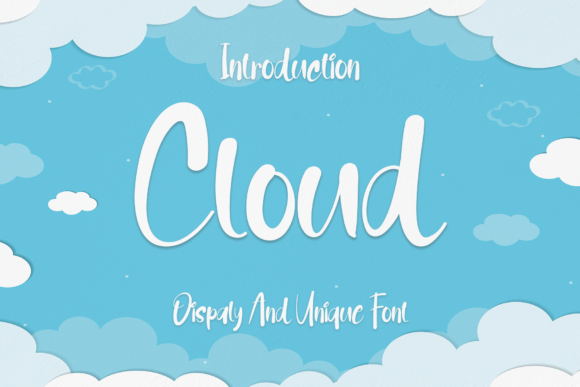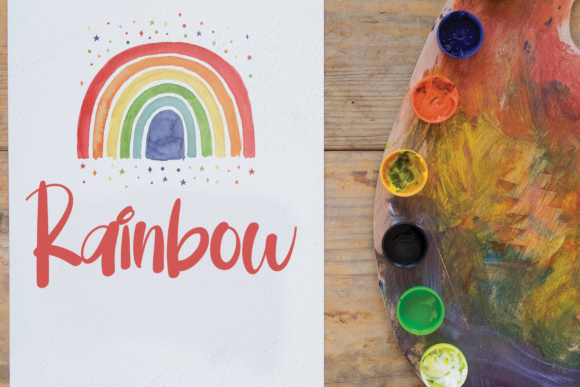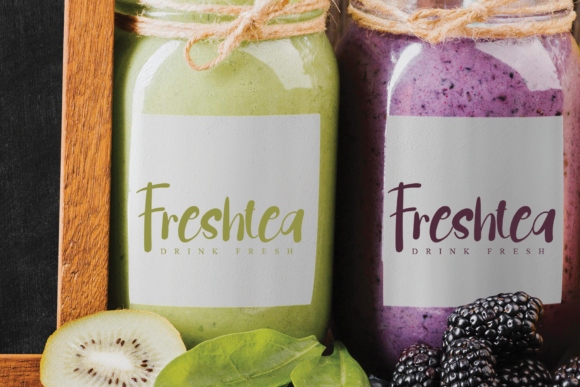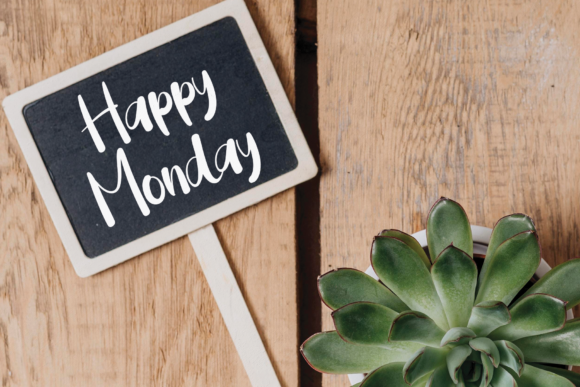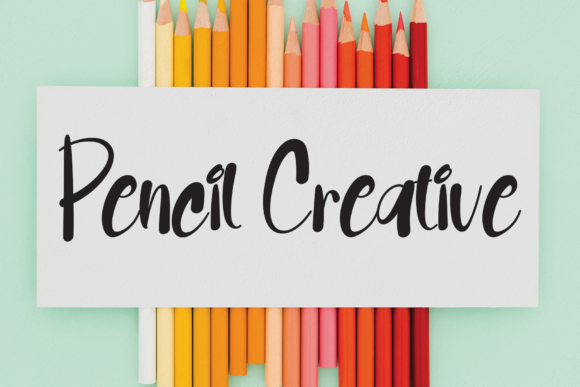
Cloud Font
About Cloud Font
Cloud is a chic and flowing script font. Dainty and joyful, this font will be ideal for writing wedding invitations, cards or any other design that may need a personalized touch!